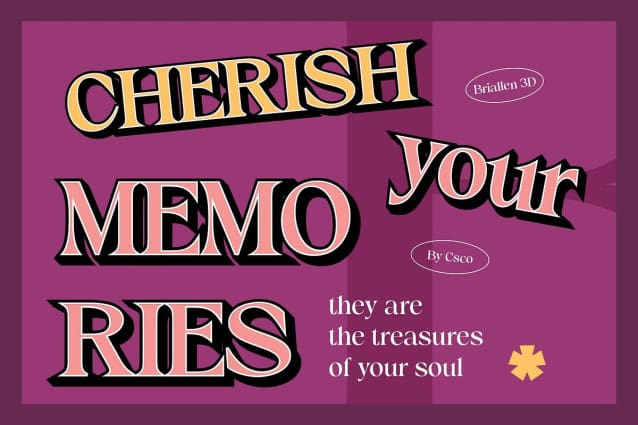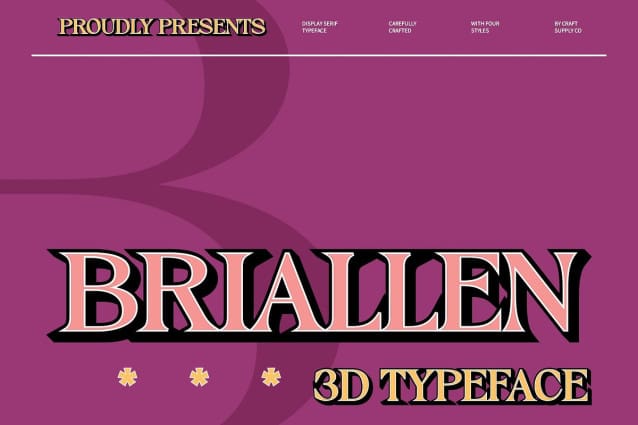
Briallen 3D Font
Briallen 3D Font is a modern serif font that combines minimalist, clean lines with refined elegance. Its sleek, structured letterforms evoke a sense of sophistication and contemporary style, making it an ideal choice for high-end branding and luxury editorial designs. The simplicity of the shapes creates a polished and understated look, allowing the font to stand out without overwhelming the viewer.
Subtle 3D Effect for Added Depth The subtle 3D effect on Briallen 3D adds dimension and depth, elevating the font’s refined appearance. This effect creates a sense of texture and movement, bringing the design to life while maintaining its minimalist elegance. The combination of sharp, clean lines with the depth of the 3D rendering enhances the font’s versatility, making it ideal for both print and digital applications.
Perfect for High-End Branding and Luxury Projects Briallen 3D is perfect for luxury branding, high-end editorial layouts, and professional designs that demand a sophisticated, modern look. Whether used in corporate identities, luxury packaging, or upscale promotional materials, this font ensures a polished and contemporary impression. Its minimalist design allows it to integrate seamlessly into a variety of premium projects, adding a touch of elegance and refinement.